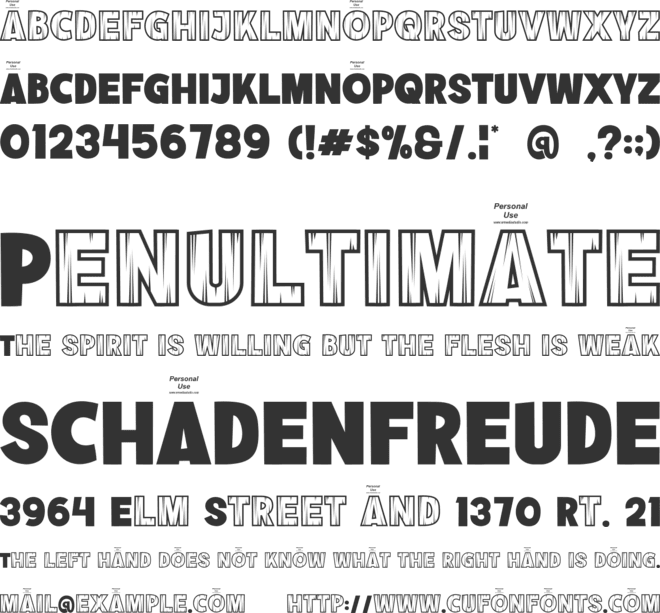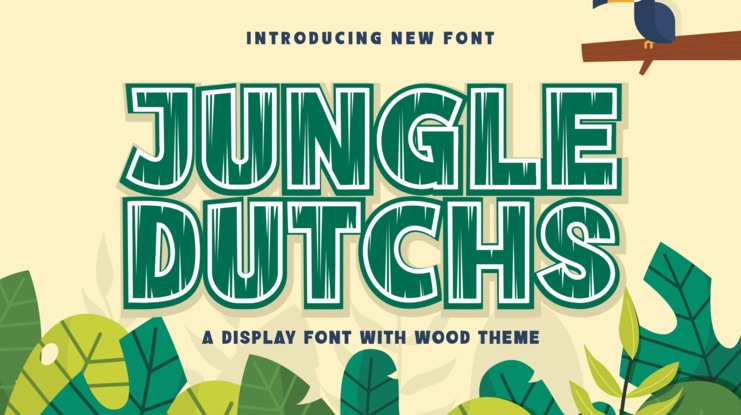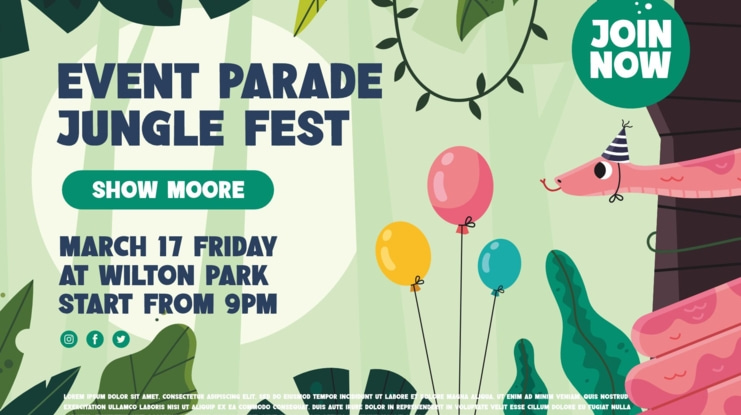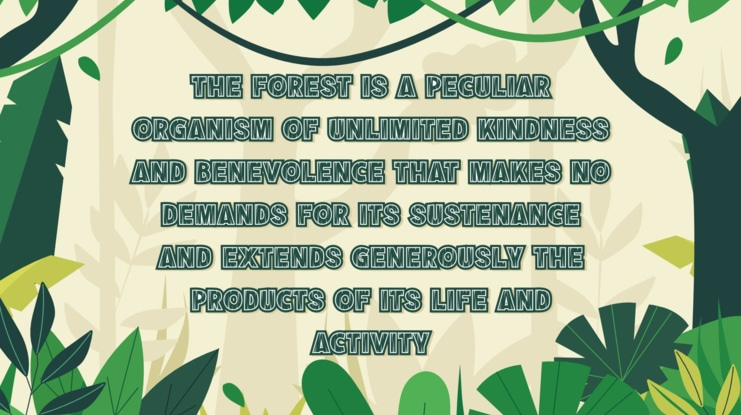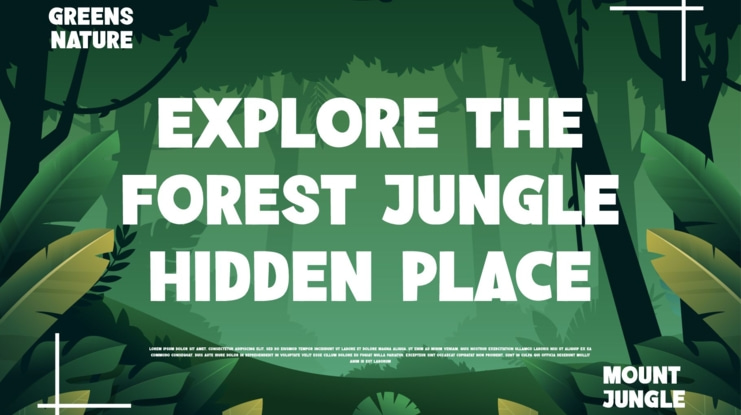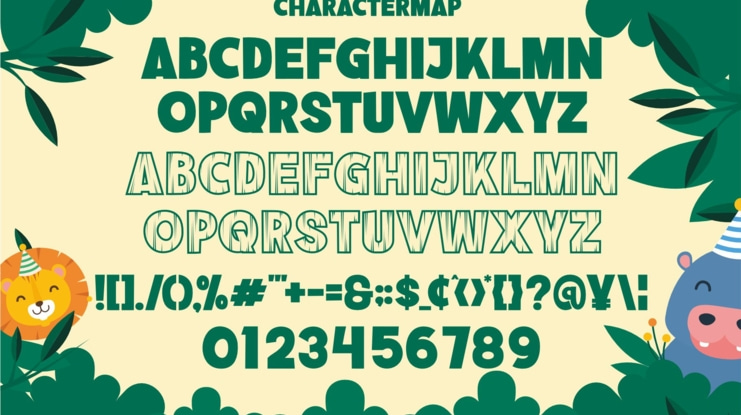
Jungle Dutchs Font
Introducing Jungle Dutch The New Bold Unique Display Font is a modern, trendy, bouncy and cute display font. It has a unique character with wood theme. It is perfect to be combined with invitation card designs, company logos, movie titles, movie names, business cards, book titles, brand names and various other designs.
FEATURE
- Uppercase and lowercase
- Numbering and Punctuation